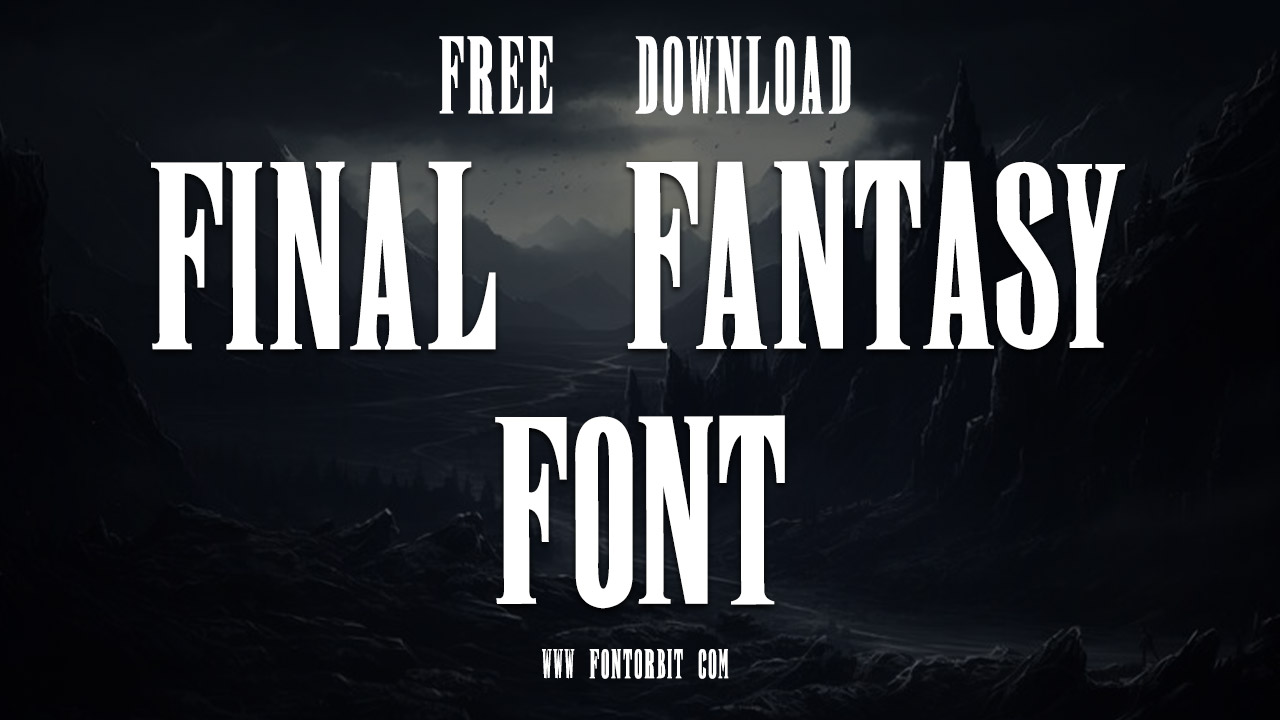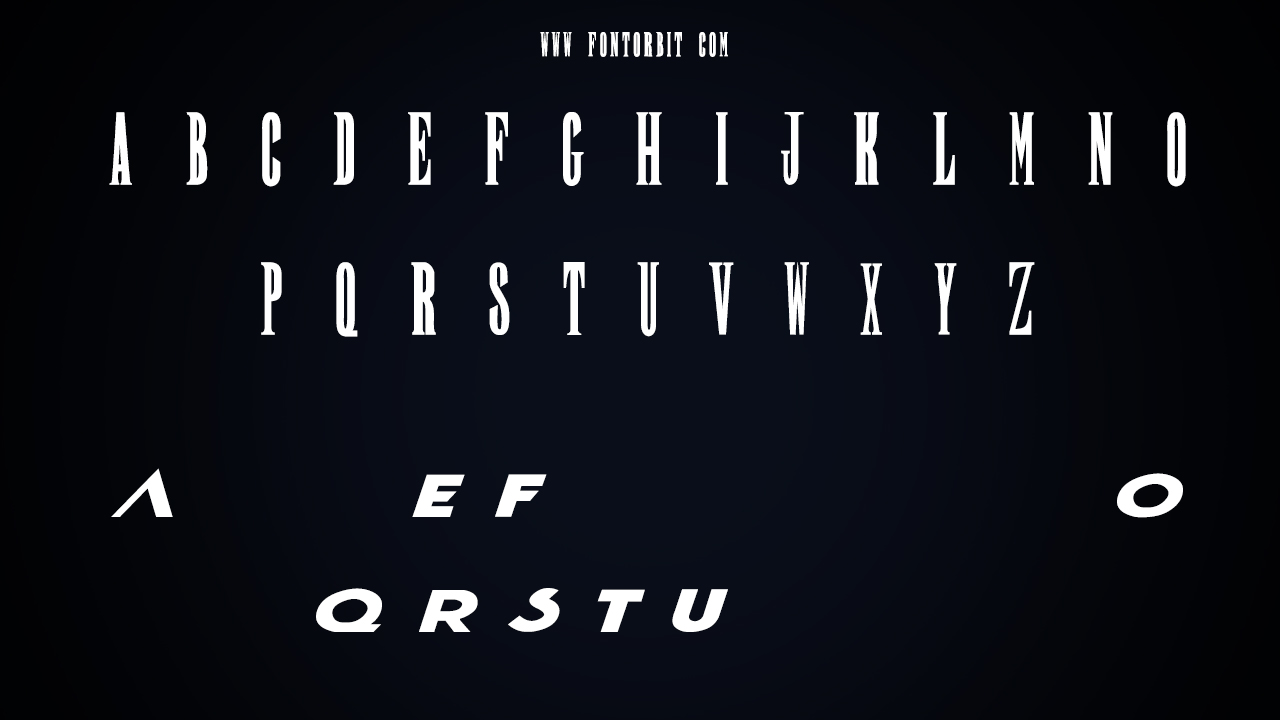
The Final Fantasy font is a popular typeface widely recognized for its use in the iconic role-playing video game series Final Fantasy. The font closely resembles the lettering found in the game’s logo and other branding material.
Designed by Juan Pablo Reyes Altamirano, this font first gained popularity when it was released on various font platforms. It is a unique serif typeface that captures the adventurous and magical spirit of the Final Fantasy universe.
The Final Fantasy font family brings a distinctive and adventurous feel to any design, making it ideal for creative projects that want to evoke nostalgia and fantasy. Its decorative, sharp edges add a mysterious and powerful aesthetic. Here’s a list of the variations within the Final Fantasy font family:
Notable Uses Of Final Fantasy Font
The Final Fantasy font is primarily associated with the world-renowned Final Fantasy game series developed by Square Enix. However, its popularity has spread far beyond the gaming community. It has been used in a wide range of contexts, such as:
- Fan-made content and tribute art for the Final Fantasy game series
- Merchandise design for pop culture and gaming conventions
- Event branding, such as cosplay events and fantasy-themed parties
- Posters and promotional material for fantasy-based video games and films
The Final Fantasy font is ideal for projects that revolve around fantasy, adventure, and nostalgic gaming experiences. Whether you’re working on a personal project or a professional design, this typeface is perfect for:
- Video game fan art and custom posters
- Event invitations for gaming or cosplay events
- Fantasy-themed projects like book covers, blogs, or websites
- Merchandise designs for apparel, mugs, and more
The Final Fantasy font remains a favorite for fans of the video game series and designers alike. Its adventurous, fantasy-themed look lends itself well to projects related to video games, events, and pop culture.
It’s a fantastic choice for any creative work aiming to capture a magical or nostalgic feel. Consider using similar fonts for variety, but the Final Fantasy font stands out for those wanting a direct connection to the beloved series.
The font is widely recognized as the Final Fantasy font, though it’s inspired by the official game logo typeface.